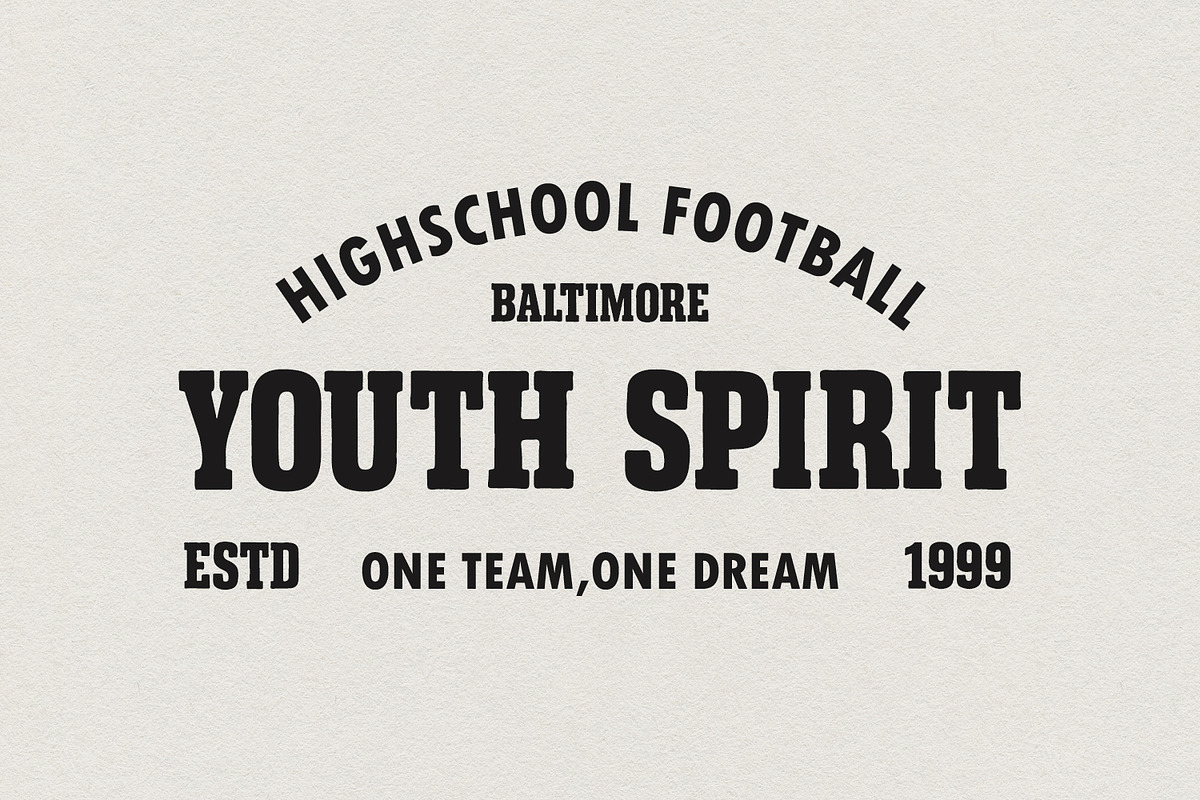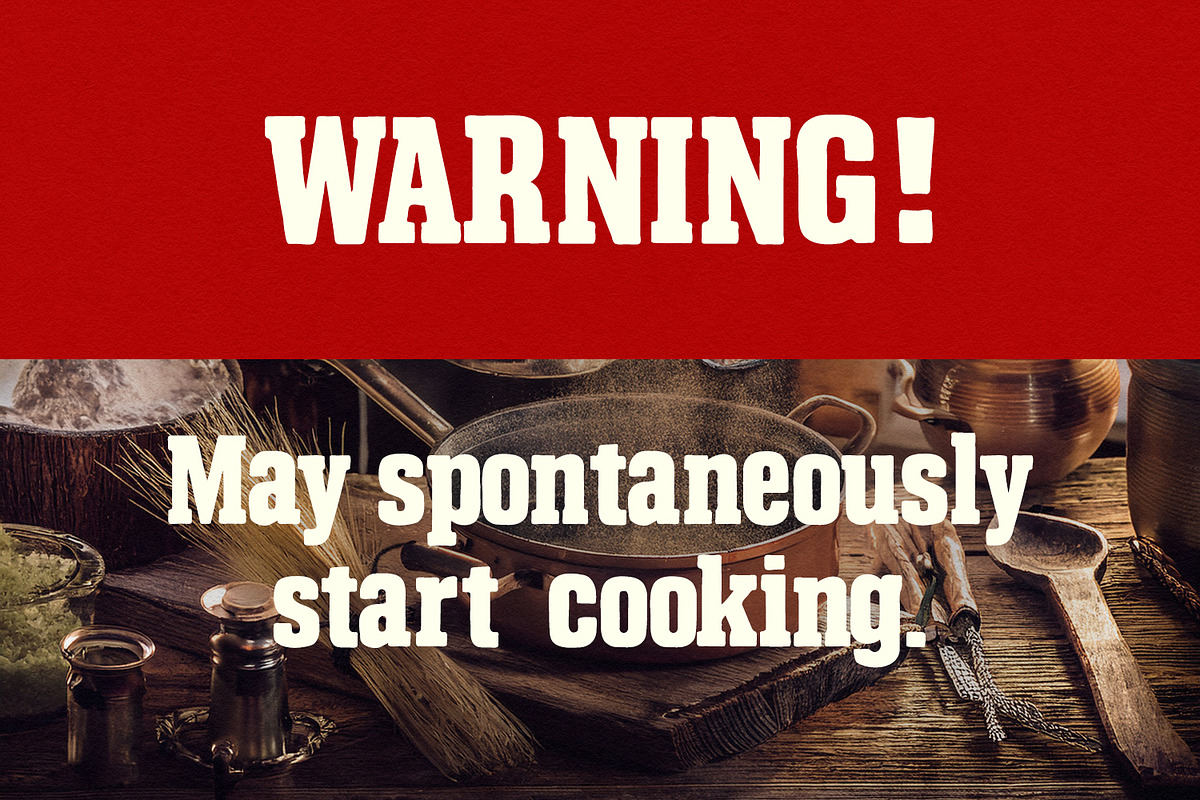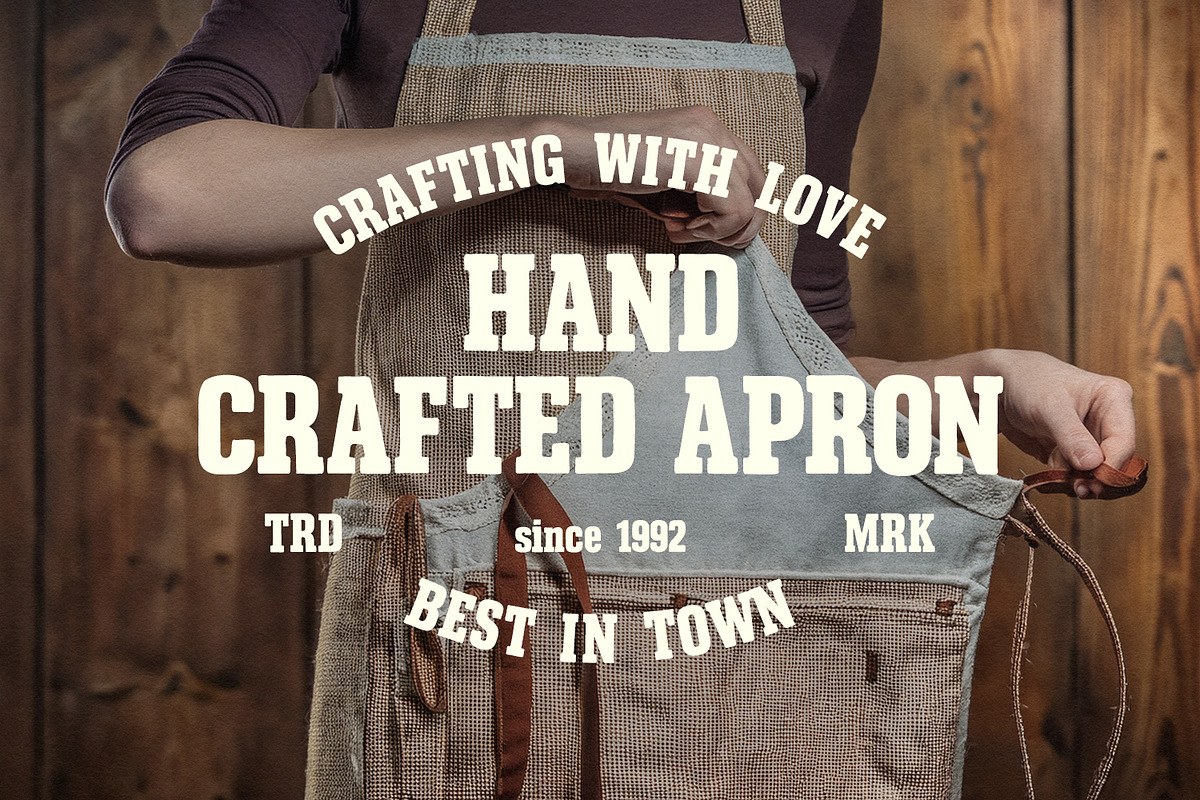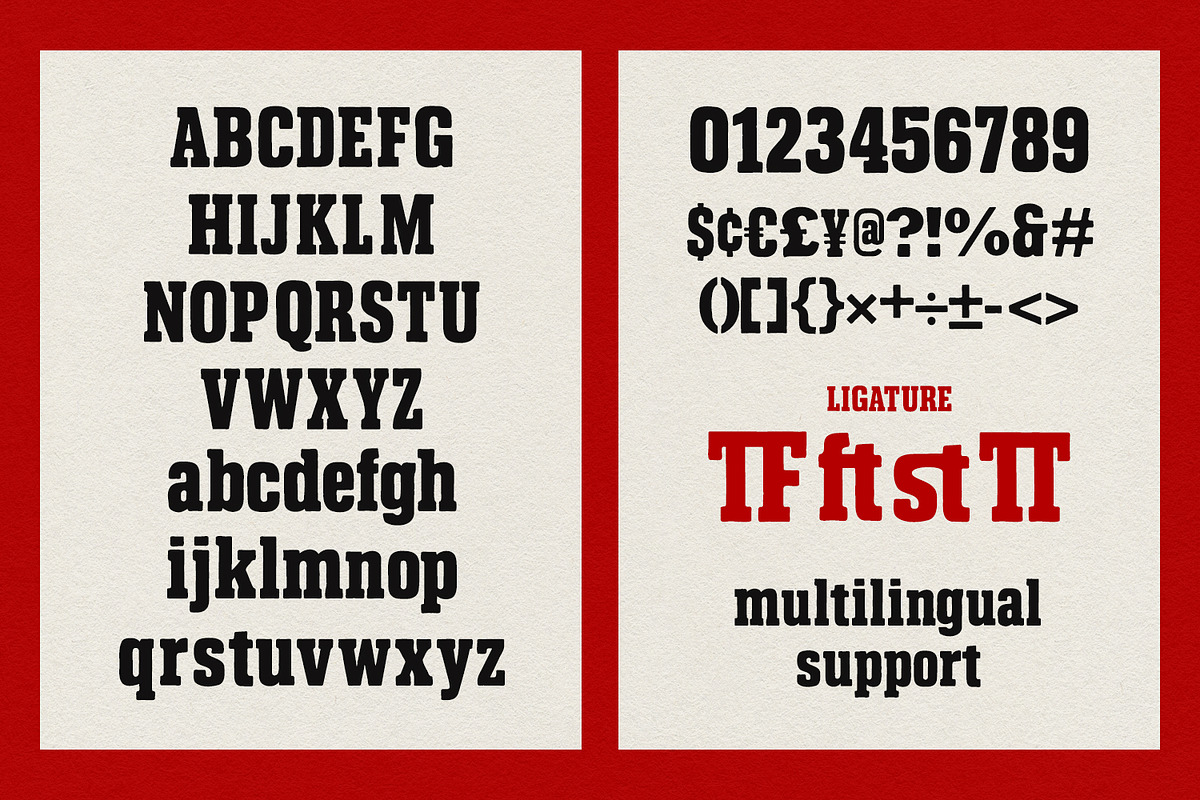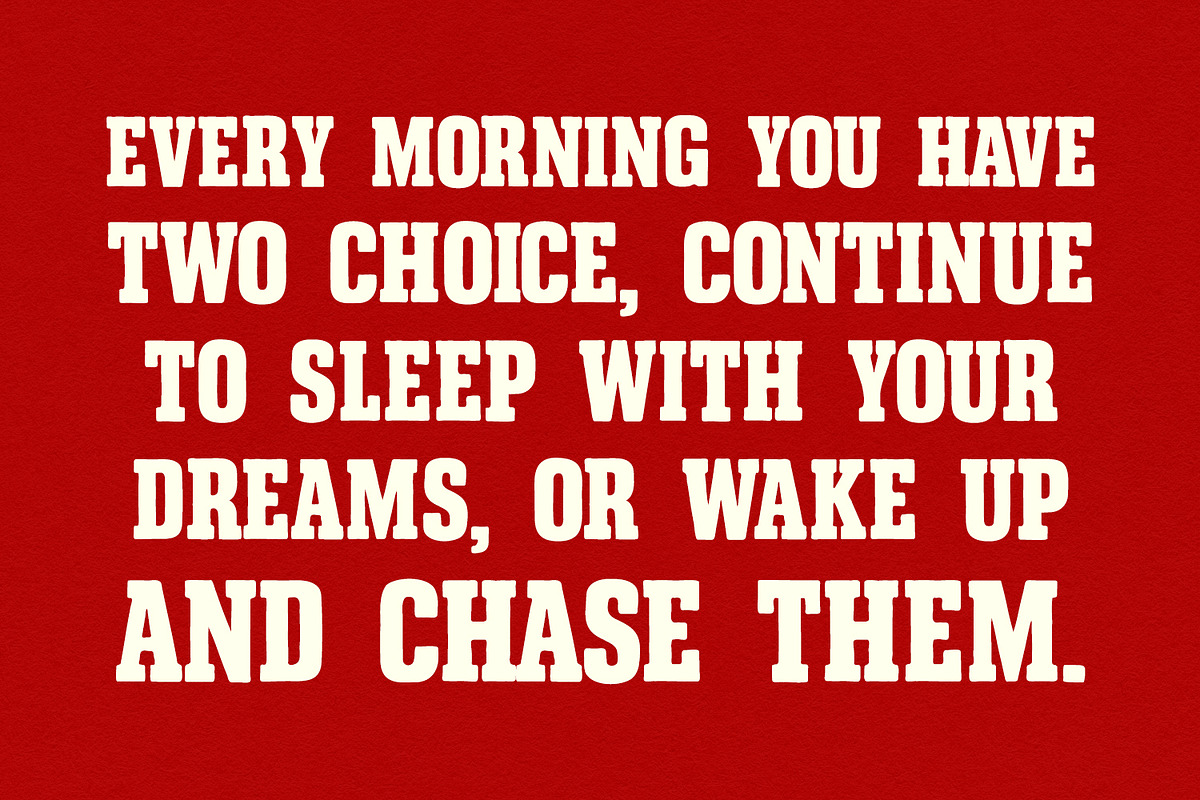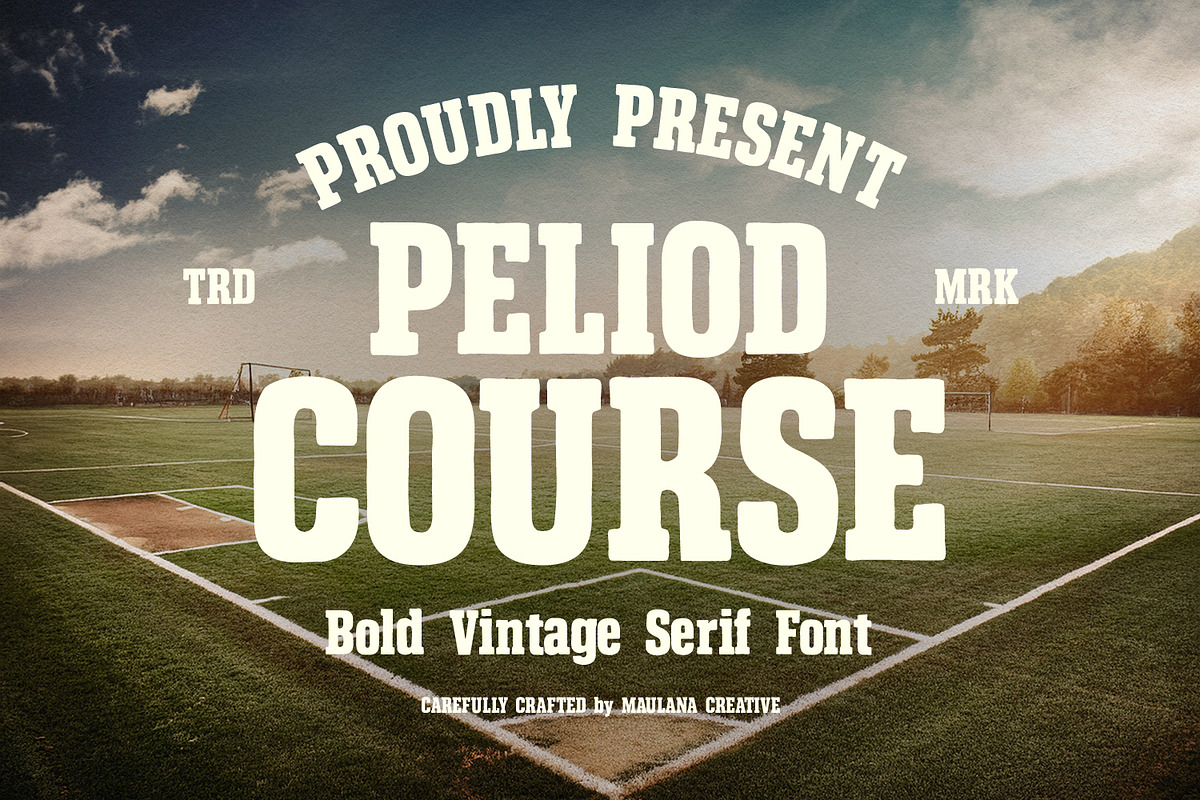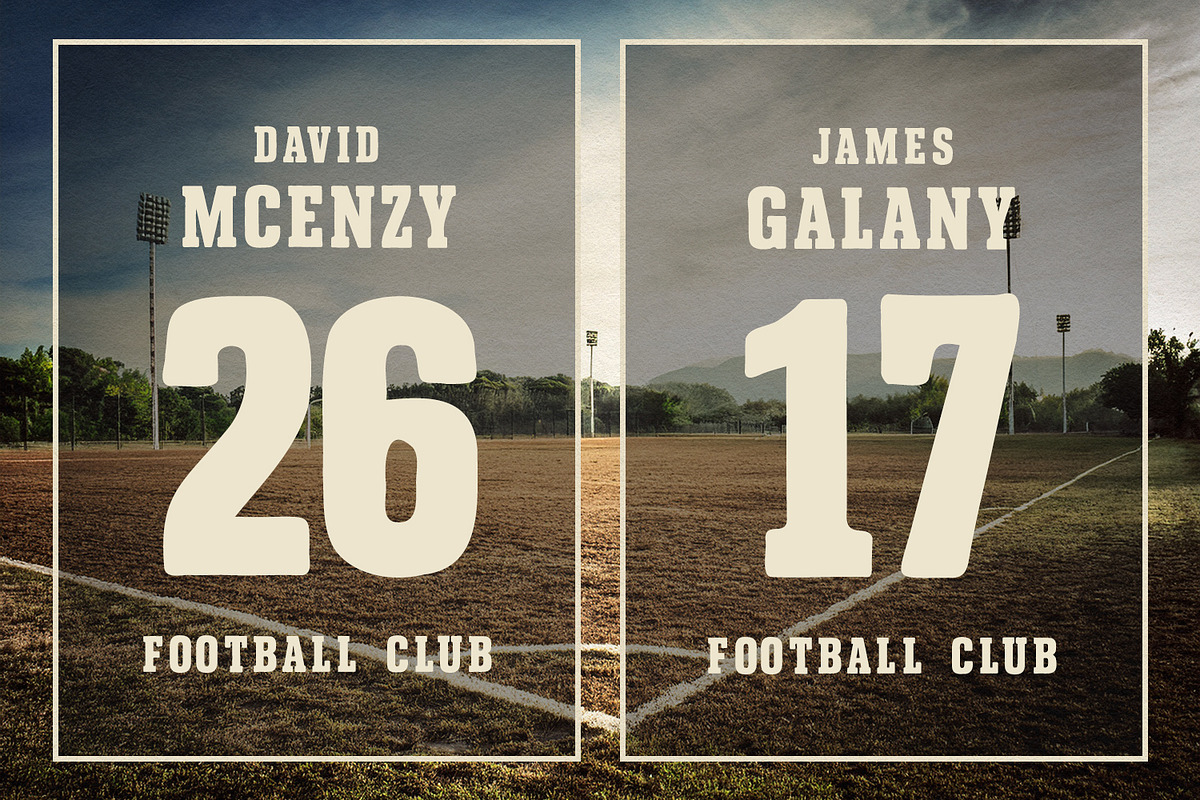
Peliod Course Bold Vintage Display
Peliod Course is a powerful and commanding display serif font that captures the essence of classic collegiate and vintage athletic aesthetics. Featuring a bold weight, distinctive slab style serifs, and a touch of hand crafted texture, this typeface evokes a sense of nostalgia and timeless strength. It is perfectly suited for sports branding, vintage designs, artisanal logos, and impactful headlines. Whether you are designing for a local football club or a rustic handcrafted brand, Peliod Course provides a sturdy and authentic look that stands out with confidence.